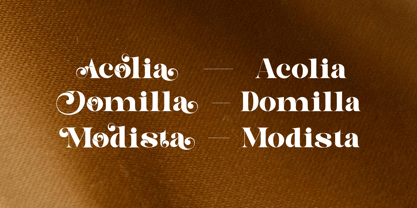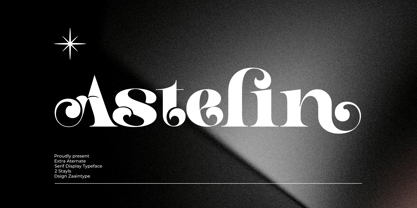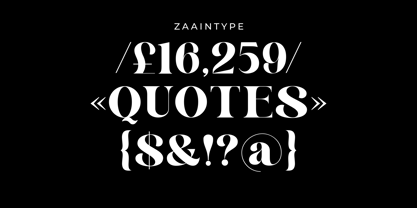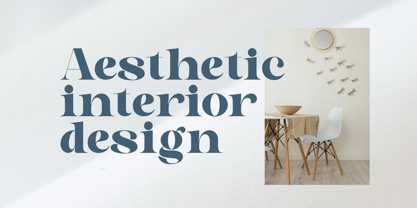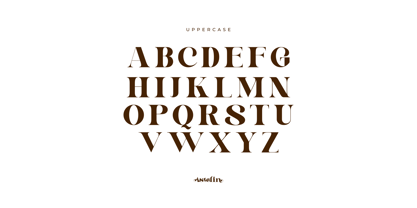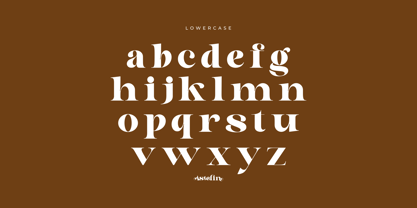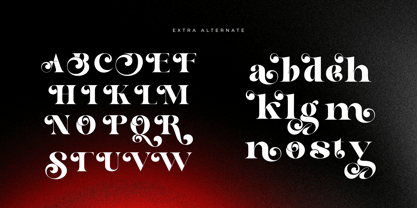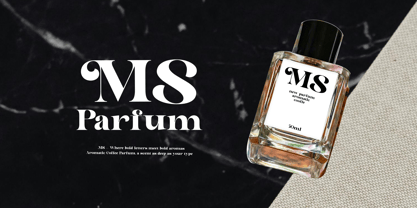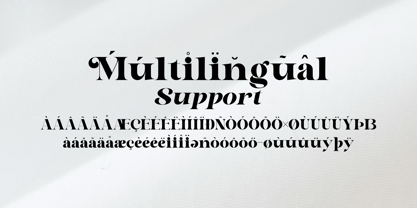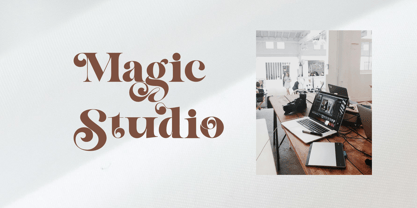
Astelin
by Zaain Type
The Astelin Font Family was designed by Ju Naen and published by Zaain Type. Astelin contains 2 styles and family package options.
Astelin is a display serif font that blends classic elegance with bold, captivating character. Available in two styles — Regular and Oblique — Astelin is designed to command attention in headlines, logos, or premium packaging. Perfect for editorial projects, luxury branding, and designs that demand a touch of refined boldness